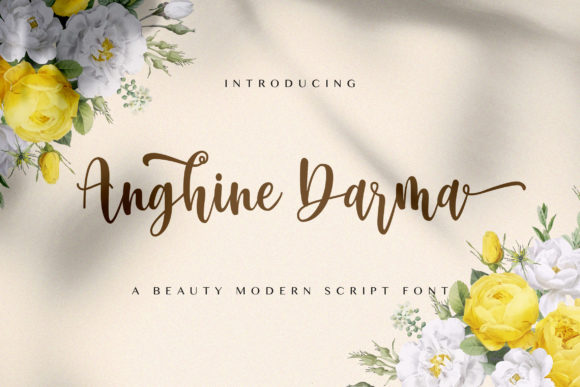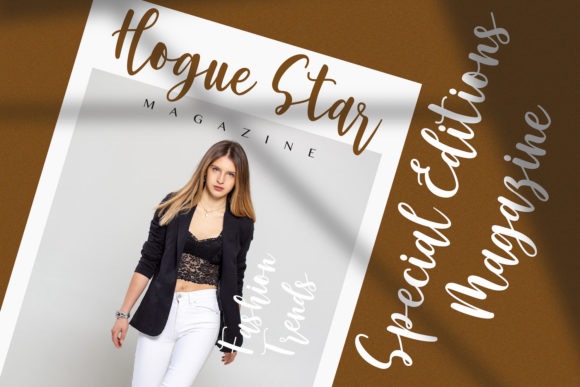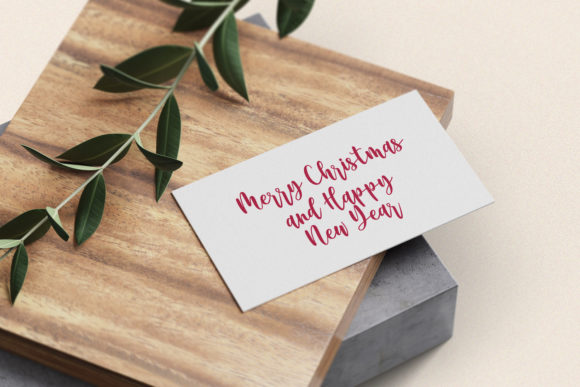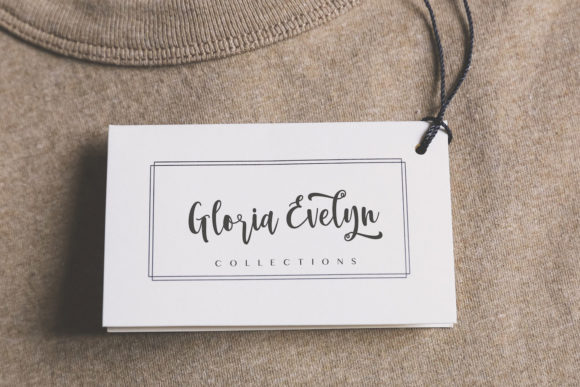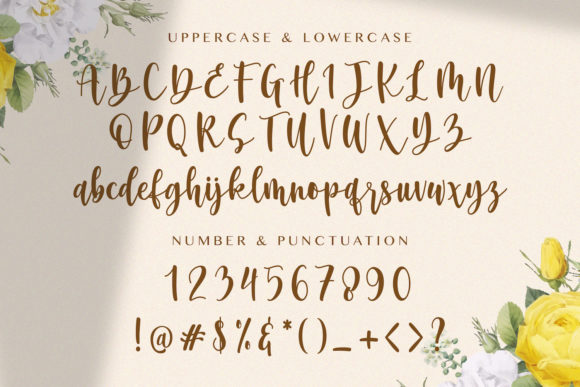
About Anghine Darma Font
Anghine Darma feels equally charming and whimsical. It looks stunning on wedding invitations, thank you cards, quotes, greeting cards, logos, business cards and every other design which needs a customized touch.